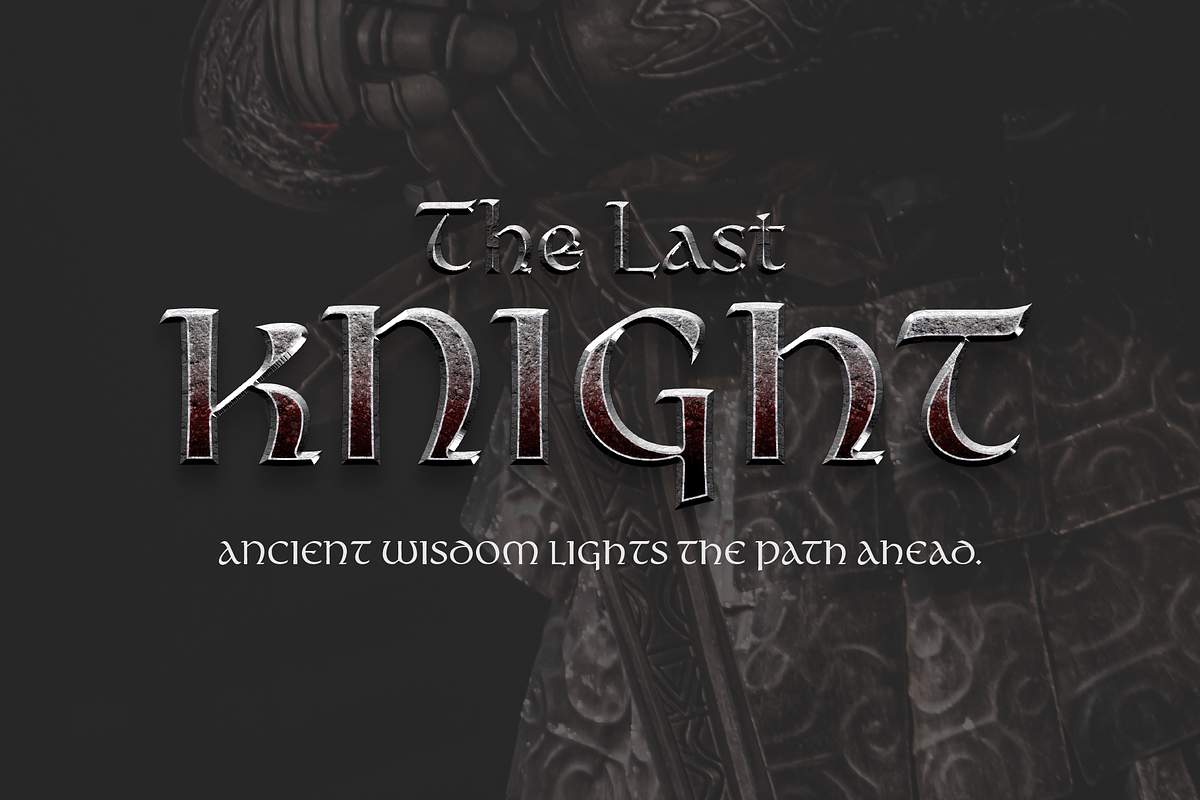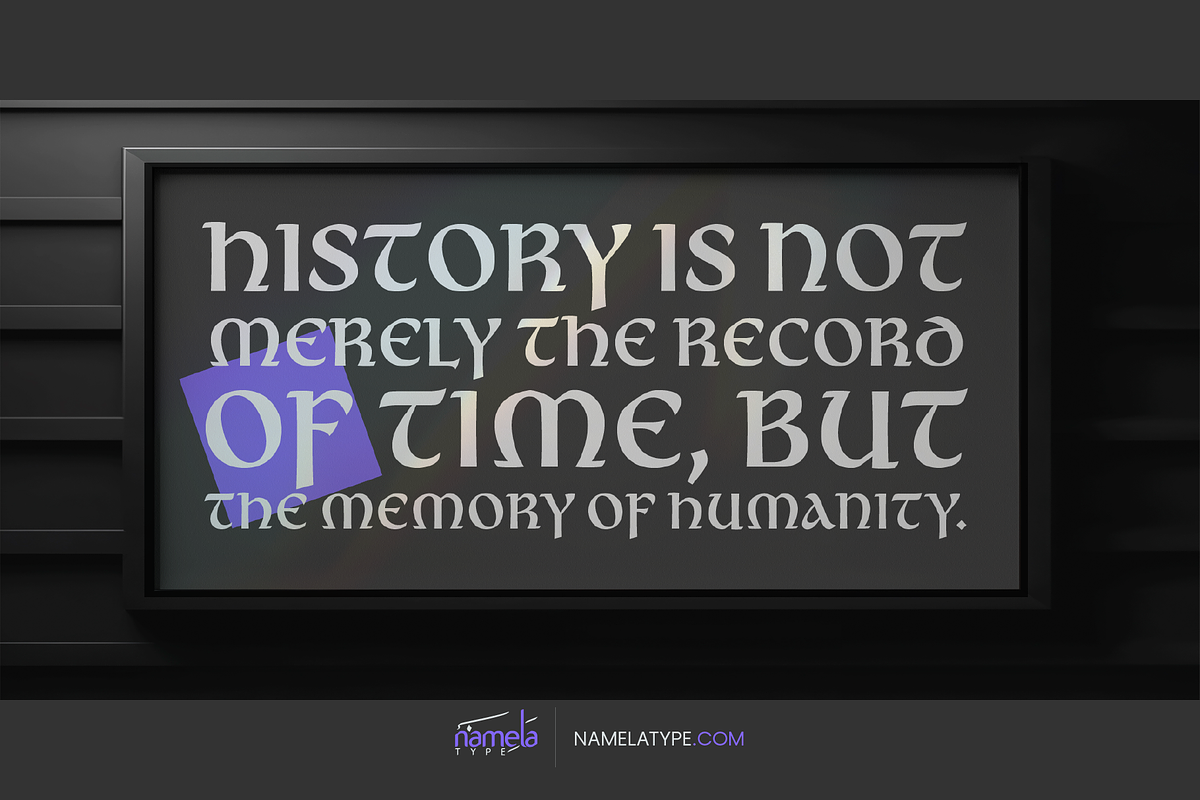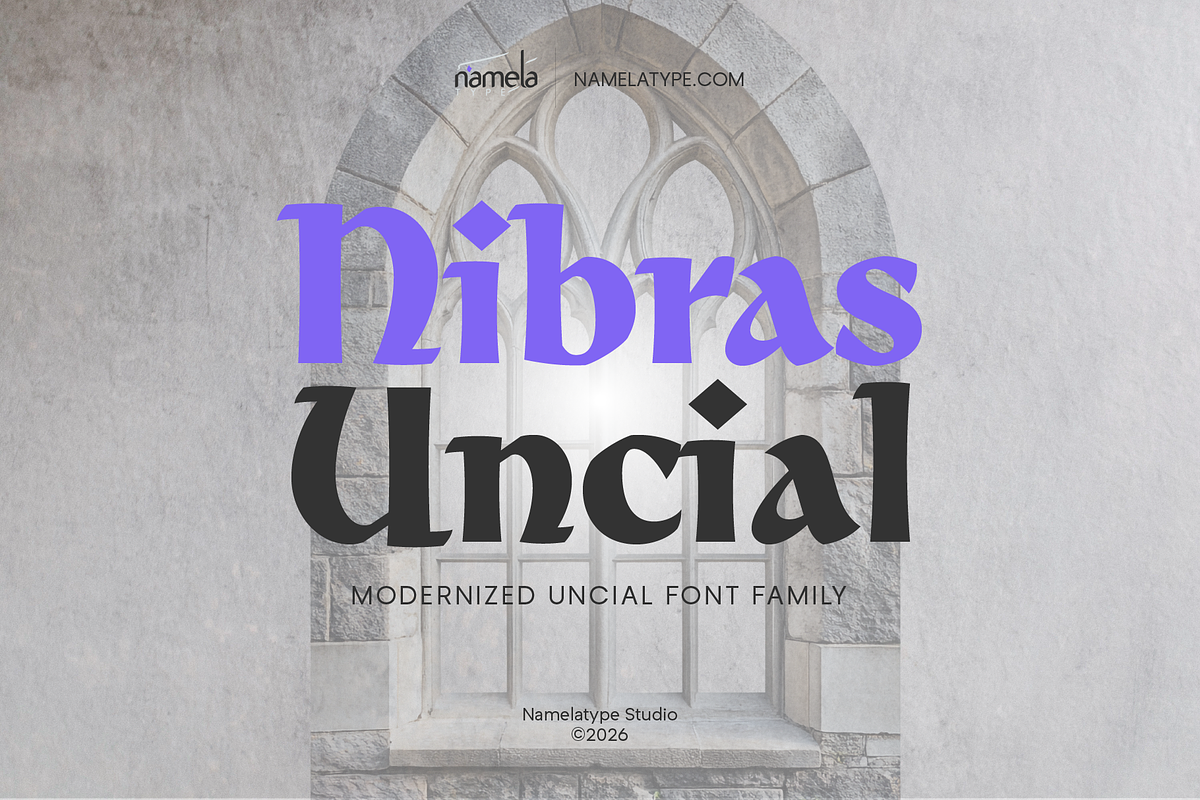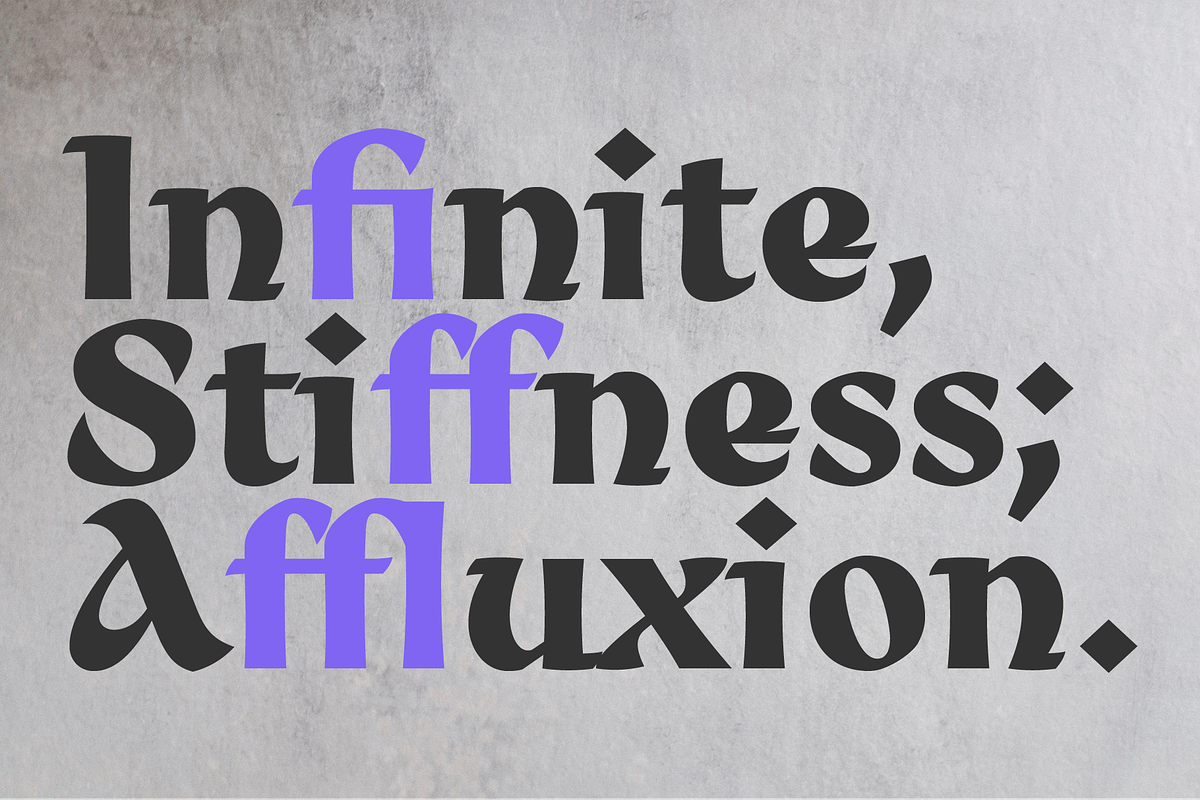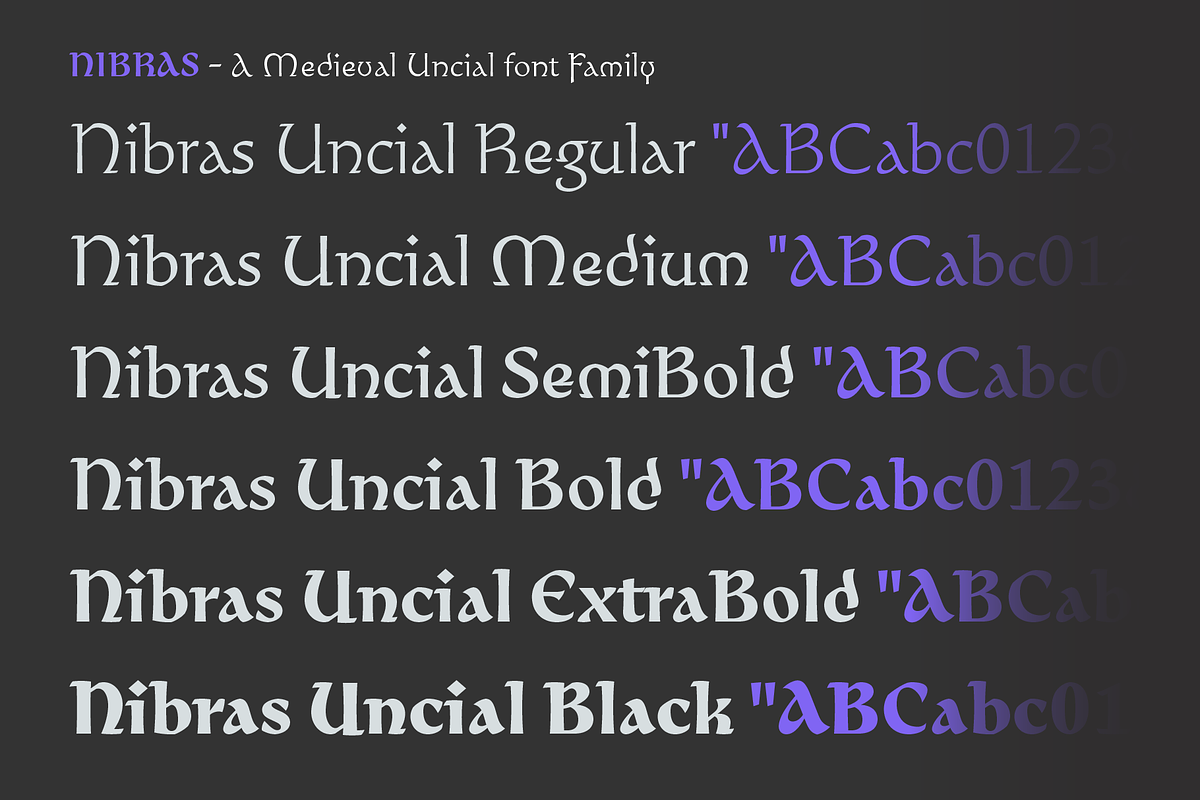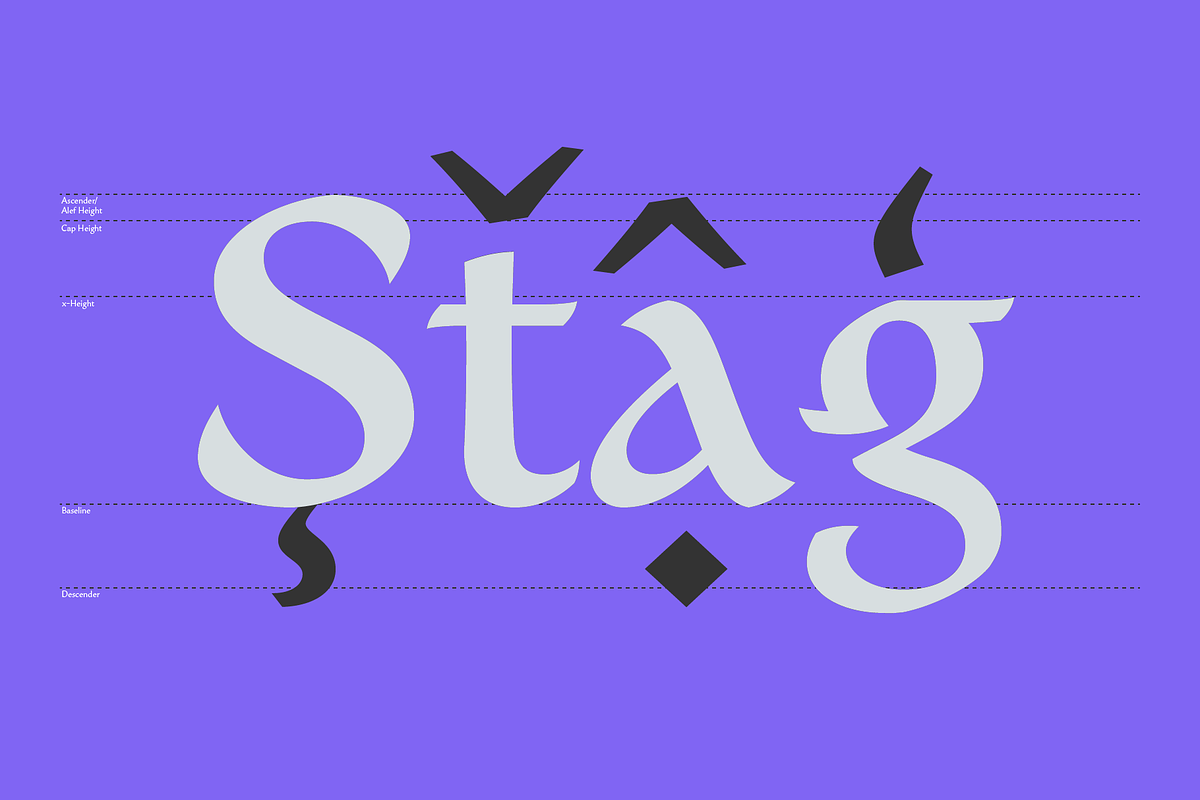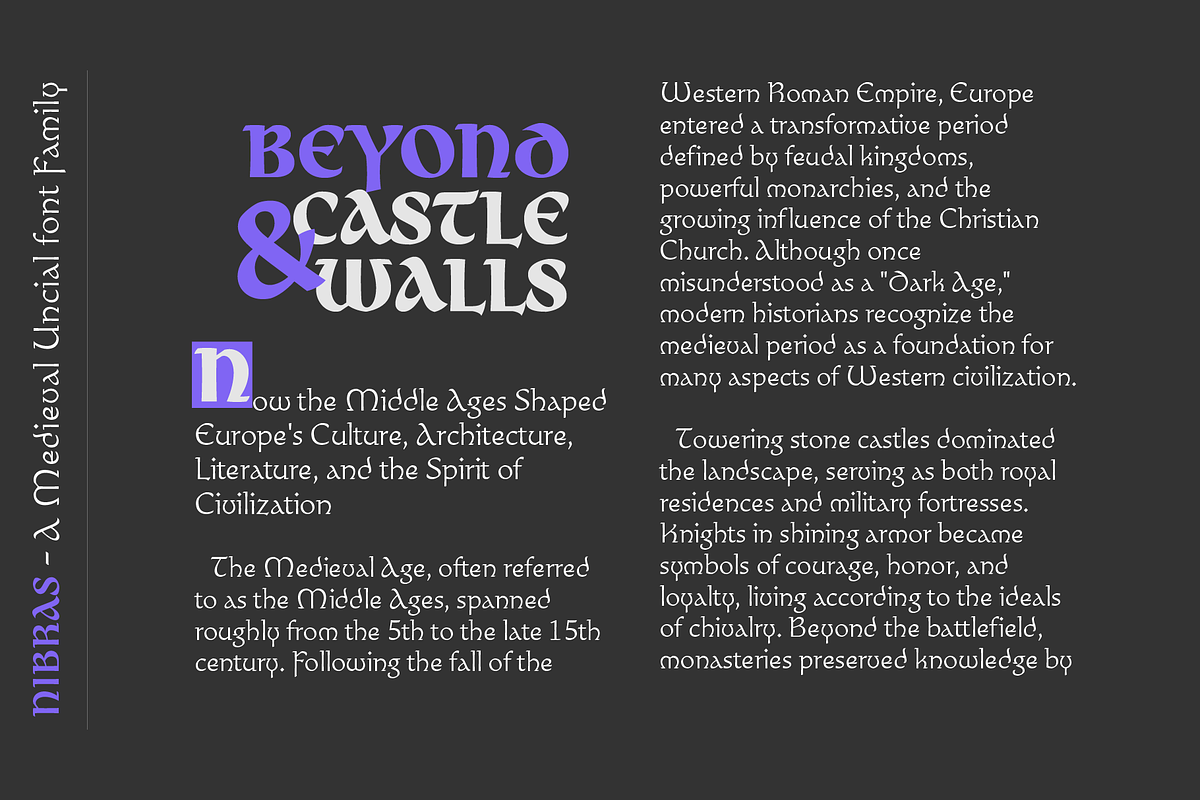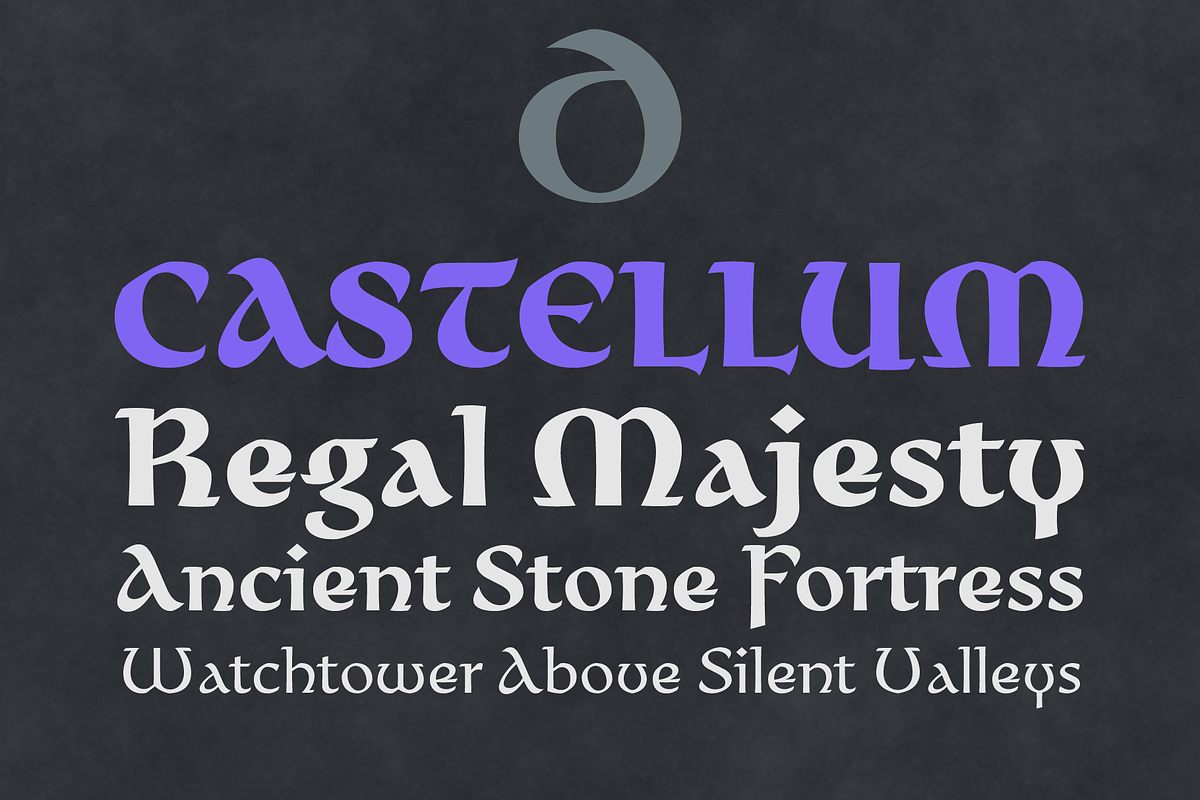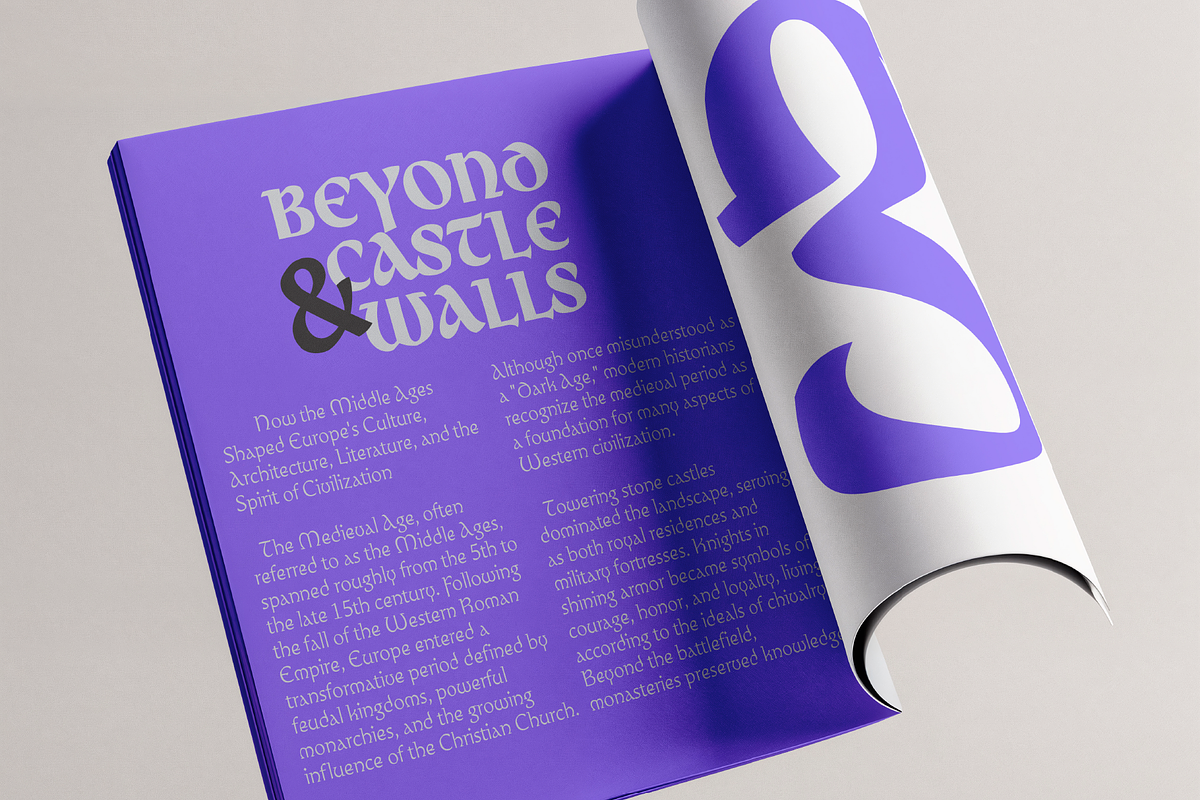
Nibras Uncial Historical Font
Nibras Uncial – A Modernized Uncial Typeface for Branding and Visual Identity
Typography has the remarkable ability to shape how people perceive a brand before a single word is read. The curves of a letter, the rhythm of a headline, and the character of a typeface can instantly communicate heritage, craftsmanship, and personality. Nibras Uncial was created from this idea—a neo-classical uncial typeface that transforms the timeless beauty of medieval letterforms into a distinctive visual language for modern branding. Rather than serving as a conventional text face, Nibras Uncial is designed to give brands a memorable identity rooted in history while remaining relevant for contemporary design.
Inspired by the expressive beauty of medieval uncial writing, Nibras Uncial captures the elegance of historical manuscripts while embracing the clarity expected in modern visual communication. Every glyph has been carefully refined to preserve the warmth and rhythm of handwritten forms while improving consistency, balance, and usability for contemporary designers. The result is a display typeface that feels both historic and fresh, capable of bringing authenticity to premium branding, artisan products, cultural institutions, hospitality, publishing, and creative identity systems.
Unlike decorative medieval reproductions that prioritize ornament over functionality, Nibras Uncial focuses on practical versatility. Its balanced proportions, refined stroke construction, and harmonious spacing allow it to perform beautifully across logos, packaging, signage, labels, editorial titles, and digital branding. Whether used for boutique businesses, luxury products, heritage-inspired identities, or handcrafted goods, the typeface communicates confidence, originality, and enduring sophistication.
OpenType Features
Nibras Uncial includes an extensive collection of professional OpenType features that enhance both creative freedom and typographic precision.
Fractions (frac) automatically generate properly formatted fractions for editorial publications, technical documents, recipes, and professional layouts.
Kerning (kern) refines spacing between character pairs to ensure harmonious rhythm, improved readability, and visually balanced typography across every application.
Standard Ligatures (liga) replace common letter combinations with naturally connected glyphs, producing smoother and more elegant typography.
Discretionary Ligatures (dlig) introduce additional decorative character combinations, allowing designers to create unique logos, premium headlines, and distinctive branding.
Localized Forms (locl) automatically substitute language-specific glyph variations to maintain typographic accuracy across multilingual projects.
Ordinals (ordn) correctly format ordinal numbers such as 1st, 2nd, and 3rd for editorial and publishing environments.
Subscript (subs) and Superscript (sups) provide professionally scaled characters for academic, scientific, legal, and technical typography.
Case-Sensitive Forms (case) intelligently reposition punctuation and symbols when used with uppercase compositions, creating cleaner and more balanced layouts.
Slashed Zero (zero) distinguishes the numeral zero from the capital letter O, improving clarity in technical documentation, serial numbers, and product codes.
Scientific Inferiors (sinf) support specialized scientific notation and advanced publishing workflows.
Numerators (numr) and Denominators (dnom) enable sophisticated mathematical composition and professionally formatted fractions.
Together, these OpenType capabilities make Nibras Uncial suitable not only for expressive branding but also for high-quality publishing, multilingual communication, luxury packaging, and refined editorial production.